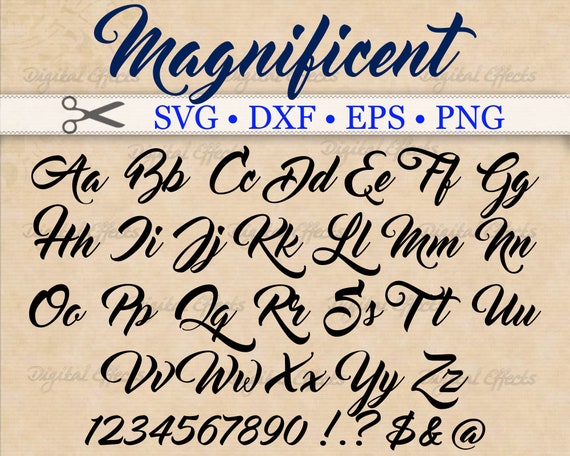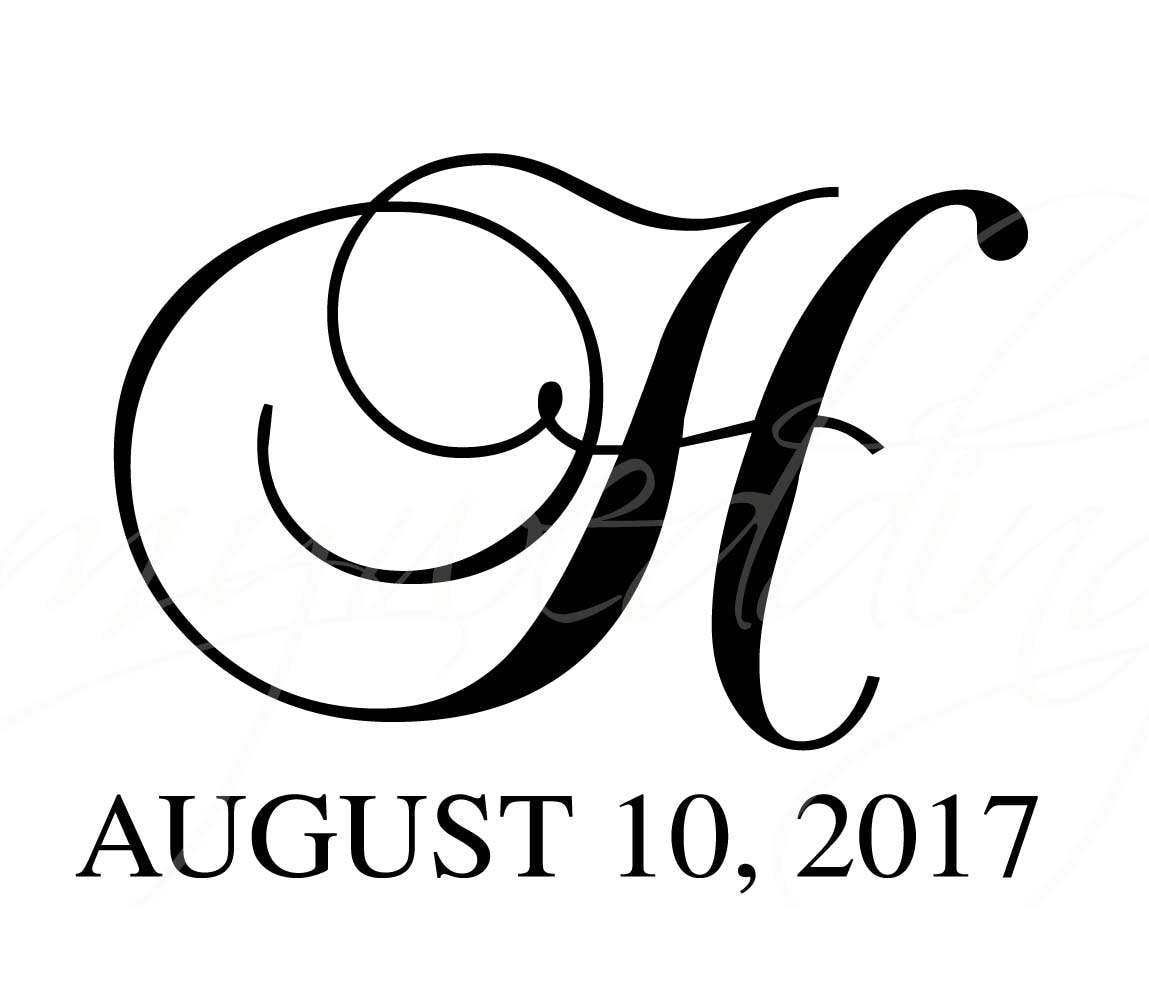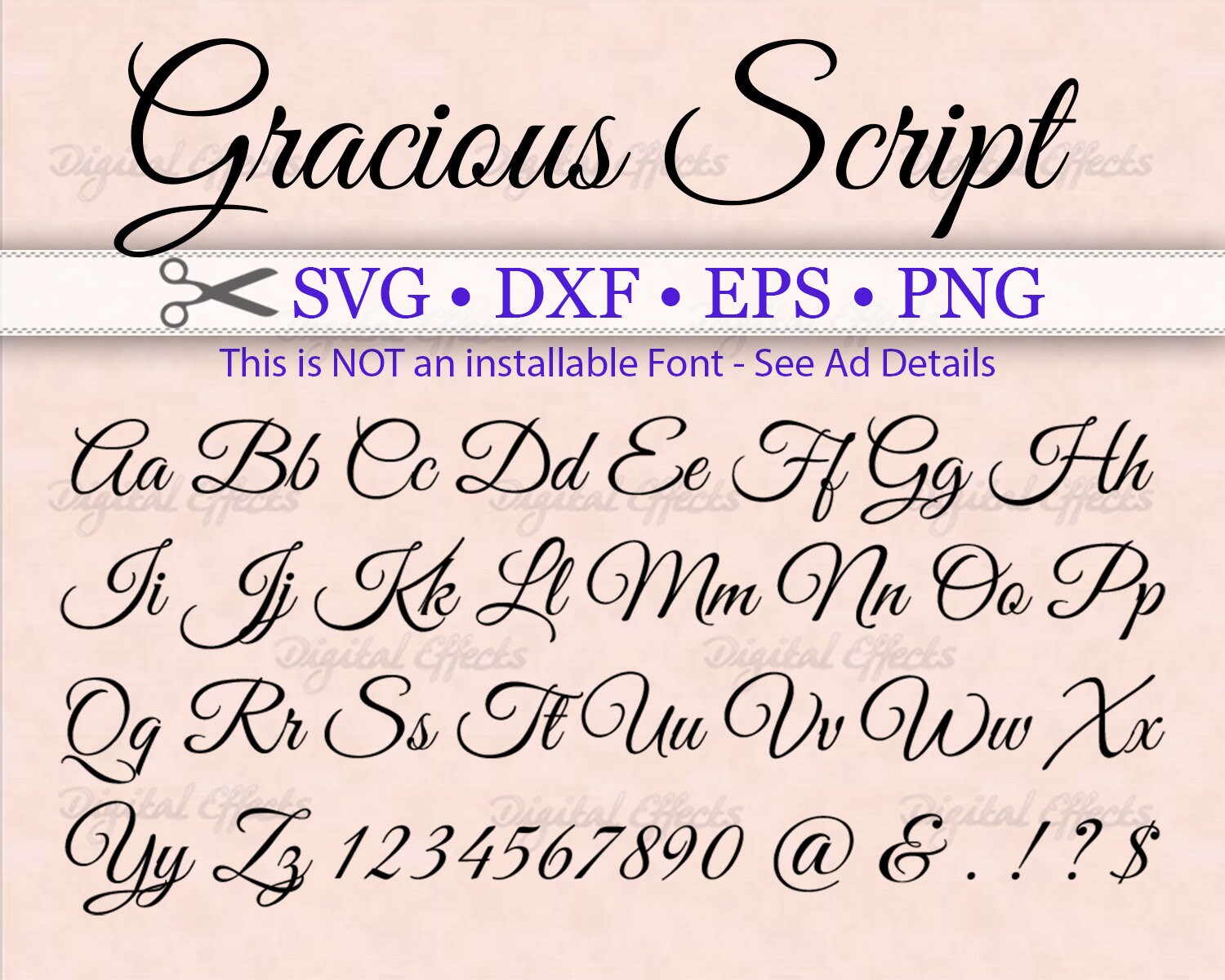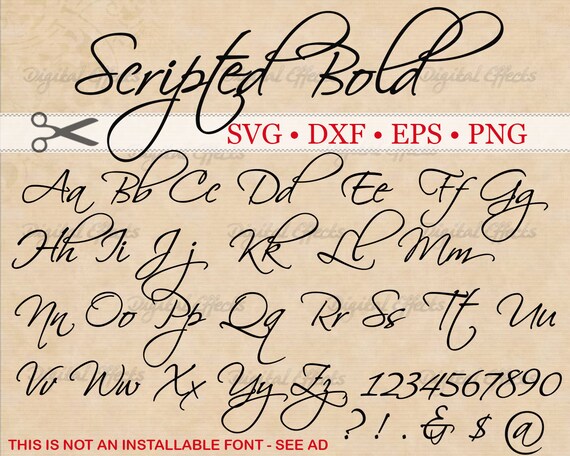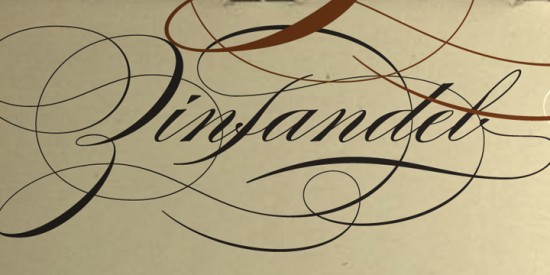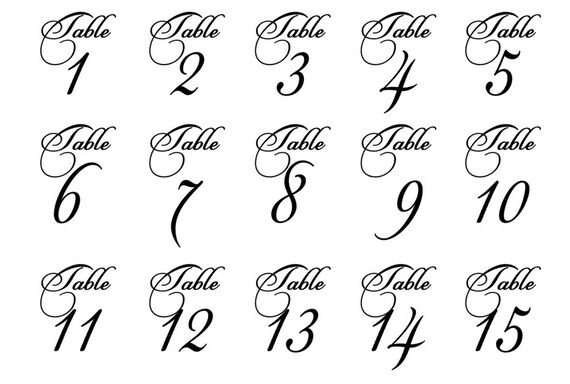
These fancy letters are symbols that exist in the unicode standard but you cant create them using only your keyboard. Metafora is a fancy calligraphy with many alternative styles this font looks natural elegant and perfect for any extraordinary projectMetafora is suitable for various products such as invitations product packaging quotes product design crafter labels photography watermarks logos branding and very suitable for design Valentine day mother day wedding spring christmas etcEverything.
Fancy calligraphy number fonts. Thats where I hope this comes in handy. Very ideal for use in writing headings invitations and short lines of text. Mar 5 2019 - Explore Christopher Hills board calligraphy numbers on Pinterest.
But there are some very fancy looking variants which are very popular Champignon Cookie Cursif Euphoria Script Freebooter Script and Germanica. Chinese Jpn Arabic Mexican Roman Greek Russian Various. Looking for Fancy Calligraphy fonts.
Calligraphy fonts are widely used in wedding event invitations original logo design religious art films TV etc. Broadly speaking calligraphy fonts may come across as having a vintage feel about them. The full a-z alphabets and numbers for each of the fancy symbol fonts above are too big to copy here but Ill paste a couple here to show you.
60 Professional Fancy Calligraphy Fonts to Download. All fonts available for personal and commercial use. It is the design and execution of lettering with a broad tip instrument brush or other writing instruments.
Calligraphy Generator calligraphy is a visual art related to writing. Collection of free calligraphy fonts from the various sources from across the web. As this page shows calligraphy looks expressive and beautiful it is widely used in wedding invitations and event invitations and calligraphy also has a large number of enthusiasts.
Number fonts is a style that is dedicated to just the number letters. If you want to create professional printout you should consider a commercial font. These letters may be roman numerals or old-style figures with varying heights.
Decorative Fancy Number Fonts Cursive Handwriting Worksheets A Z 900650 Fancy Cursive Alphabet Cursive Tattoo Lettering Fonts Best Tattoo Ideas Knoxville Embroidery Web Page Cursive Font Fancy Fonts Png Pngwave Royalty Free Retro Old Fashioned Numbers By Seamartini Graphics ᐈ Fancy Cursive Fonts Stock Vectors Royalty Free Postcard Font. According to the designer the font is an ode to the late 19 th century American calligrapher Louis Madarasz known as the most skillful penman the world has ever known. Click to find the best 343 free fonts in the Fancy Calligraphy style.